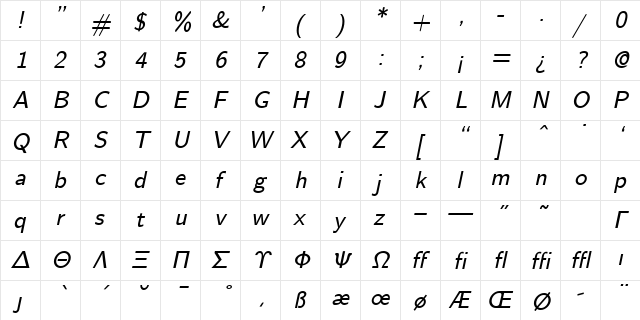
cmssi9 Regular
Design Context for cmssi9 Typeface
cmssi9 offers clean, dependable letterforms without strong stylistic allegiance, making it a practical choice for designers who need flexibility.
Pro Tip: Use cmssi9 in both headline and body roles to test its range before committing to a single application.